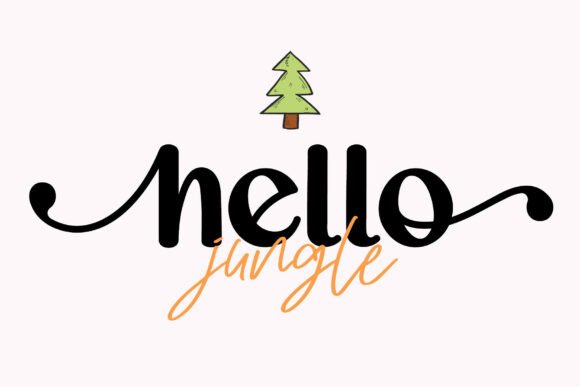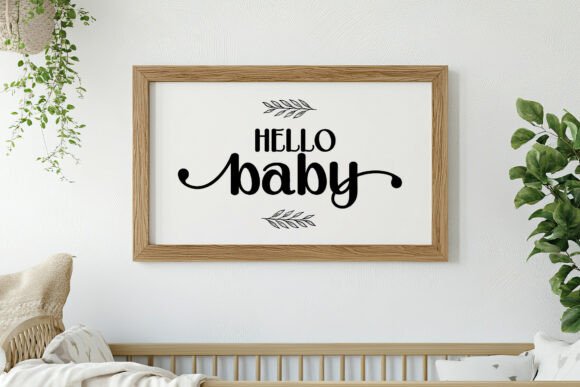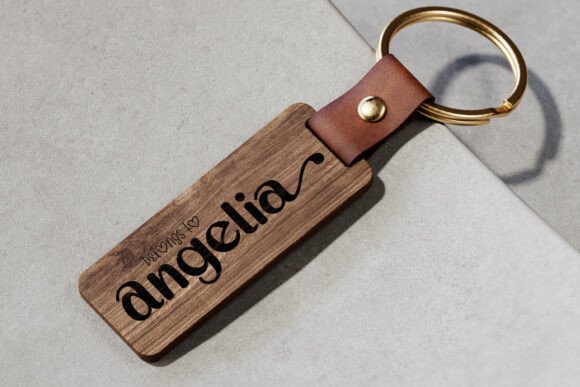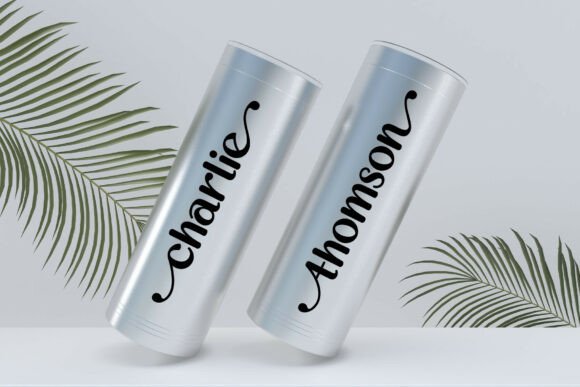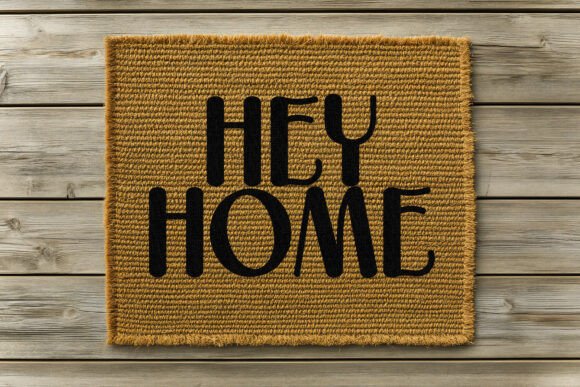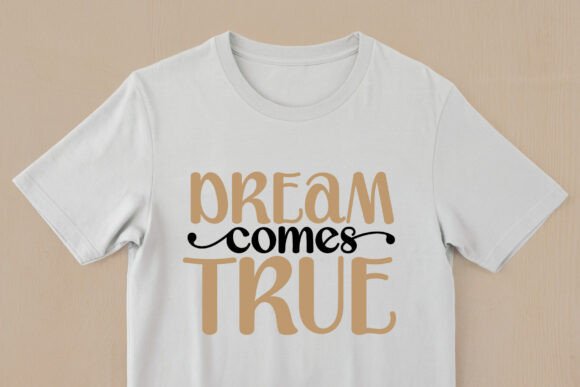
Introduction to Kale Font Font
Fonts play a crucial role in design, and the Kale Font font is a typeface that brings both character and versatility to any project. Whether you’re working on a branding project, a website, or a print design, the Kale Font font offers a unique style that can elevate your work.
Kale is sweet and cute handwritten font.
This font radiates festive, joyful, and fancy vibes into the design Kale font has lowercase tail swash in front and back.
The Kale Font font is more than just a typeface – it’s a design tool that helps you communicate your message with style and clarity. Its unique character set and versatile design make it suitable for a wide range of applications, from elegant invitations to bold headlines.
With its carefully crafted letterforms and balanced proportions, the Kale Font font ensures readability and visual appeal across all mediums.
The Kale Font font stands out with its unique design, exceptional readability, and versatility across various design applications.